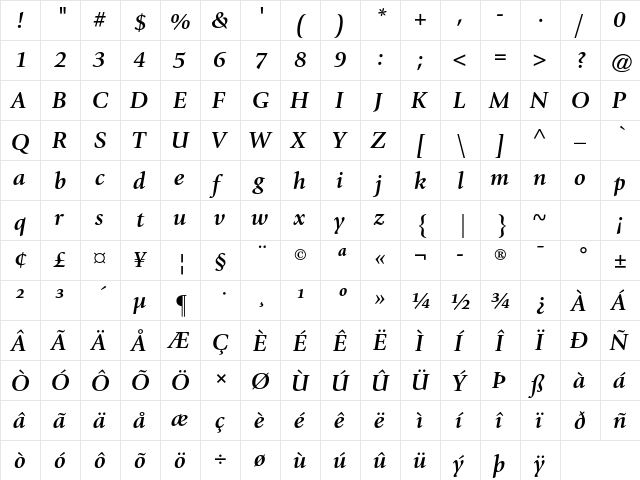
ITC Giovanni Std Bold Italic Font Preview
| Designer | Robert Slimbach |
Design Context for ITC Giovanni Std Typeface
ITC Giovanni Std takes a measured approach to typography — its balanced proportions and neutral character make it a reliable workhorse for both digital and print work. Its italic angle brings a sense of urgency and motion to the letterforms. The heavy weight commands attention and anchors typographic hierarchies.
Pro Tip: Try ITC Giovanni Std for annotation and caption copy alongside an upright companion — the contrast in angle creates a dynamic but ordered typographic system.